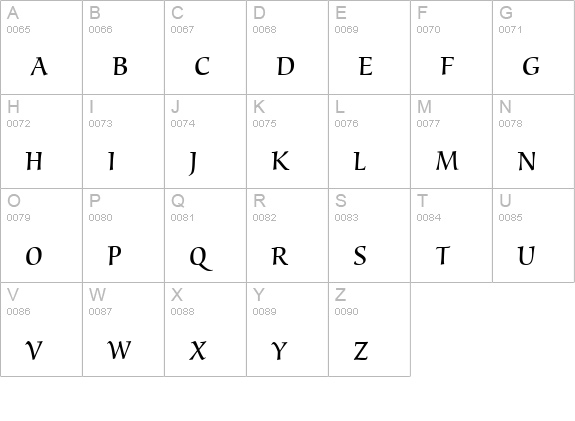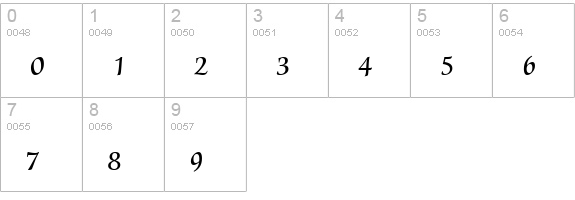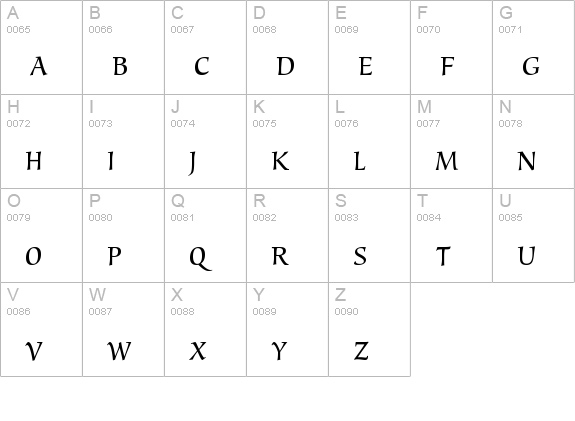
AudreyTwo SWC Font Details
AudreyTwo SWC is a stylish and versatile font that exudes elegance and sophistication. With its sleek lines and modern aesthetic, this font is perfect for a wide range of design projects, from branding to editorial design. The AudreyTwo SWC font features a unique blend of classic and contemporary elements, making it a standout choice for anyone looking to make a statement with their typography. Best of all, AudreyTwo SWC is available for free download at FontsMarket.com, allowing designers and creatives to access this stunning font without any cost. Whether you're working on a personal project or a professional design endeavor, AudreyTwo SWC is sure to elevate your work with its timeless appeal and impeccable craftsmanship. Download AudreyTwo SWC today and add a touch of sophistication to your designs.